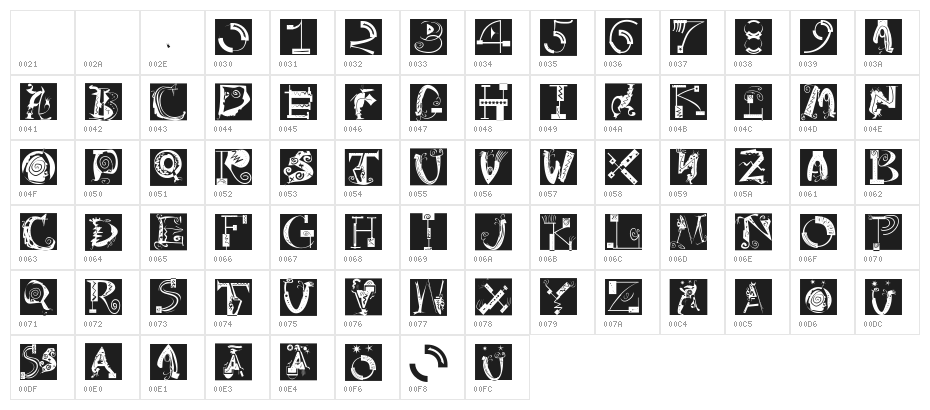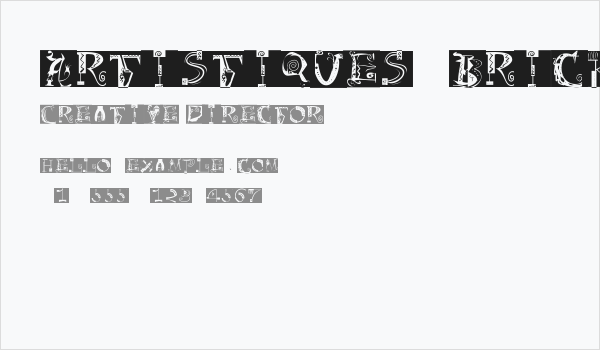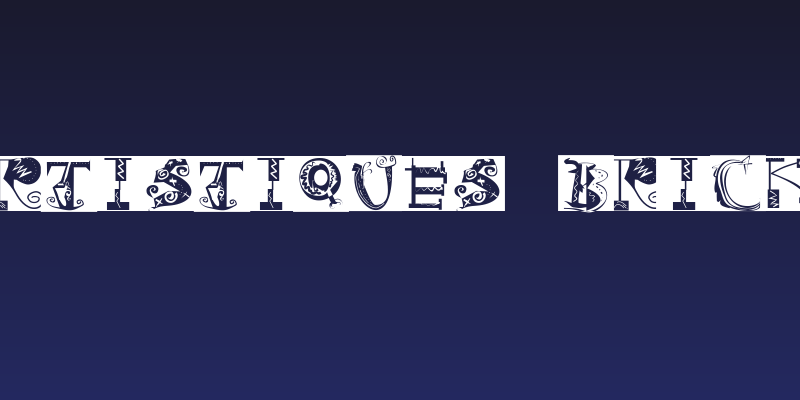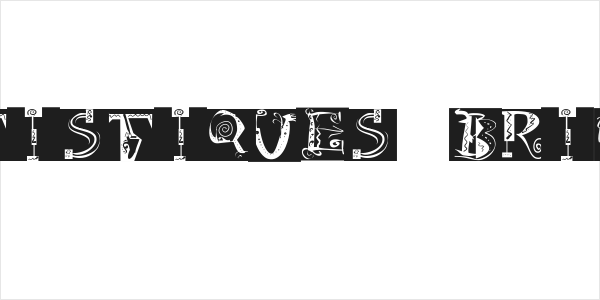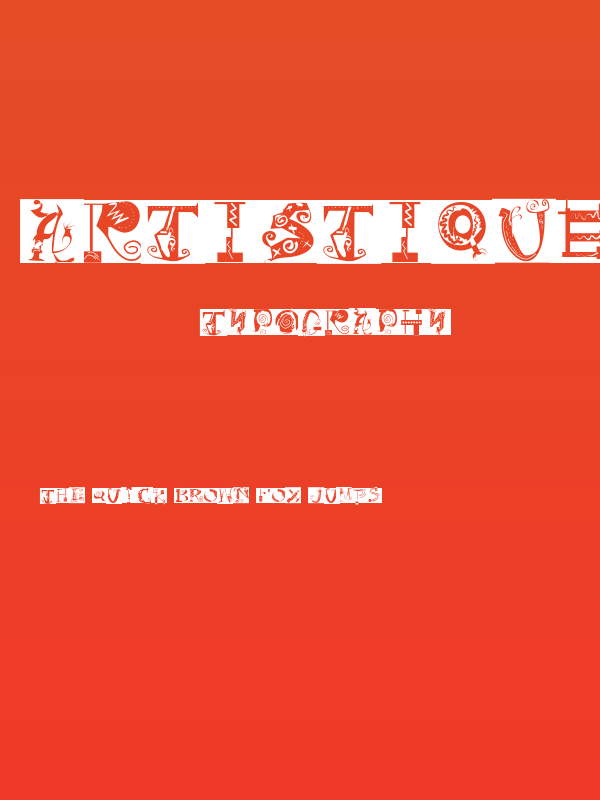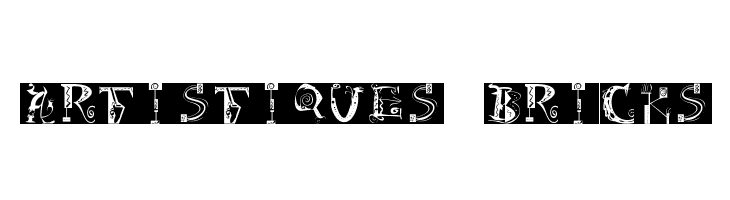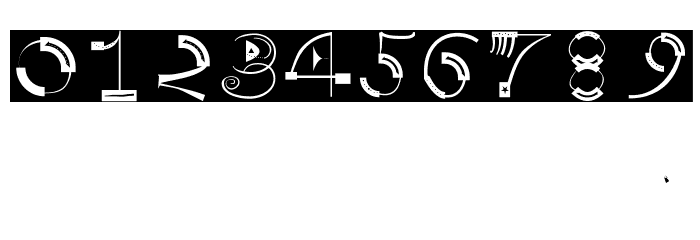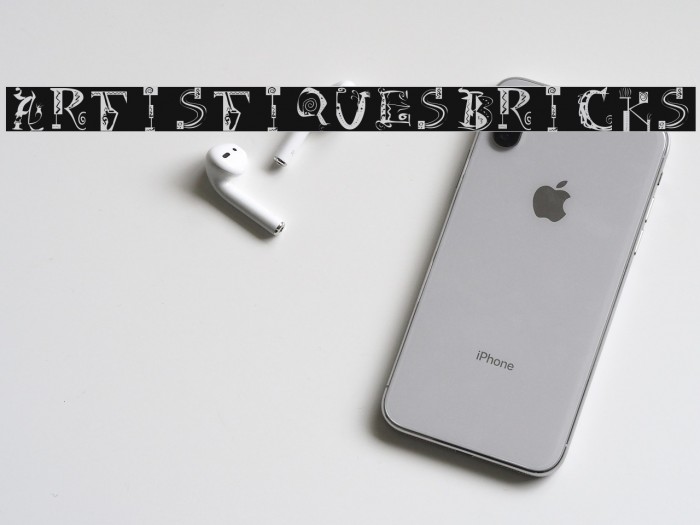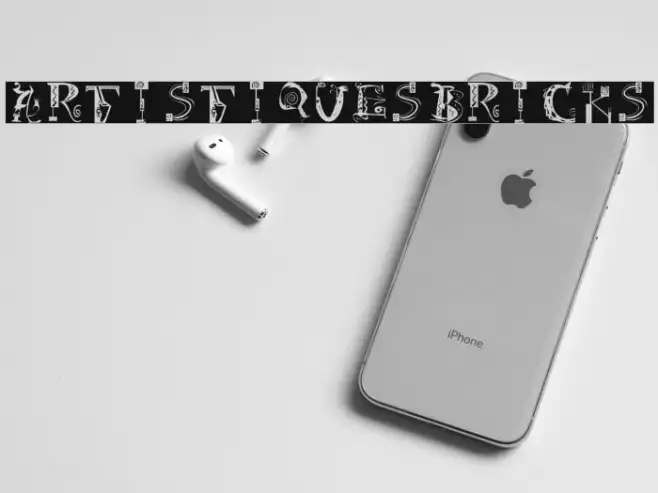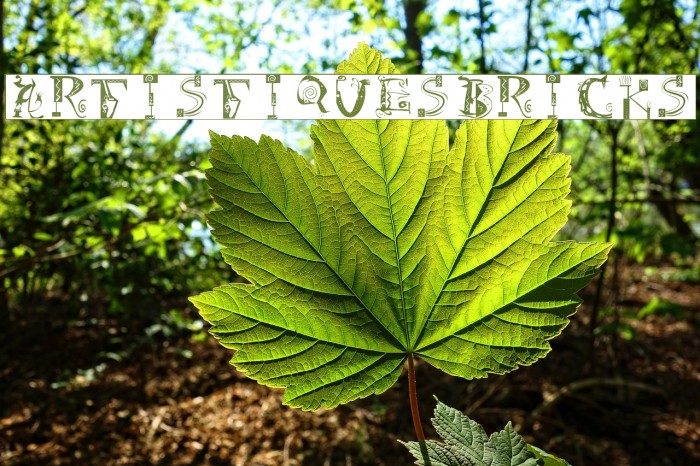
Artistiques-Bricks Font
✎ Curly
| Categorie | Curly |
| Caso d'uso | Headlines, Logos, Artistic projects |
| Progetti proposti | Ideal for artistic posters, creative branding, unique invitations, and decorative headlines. |